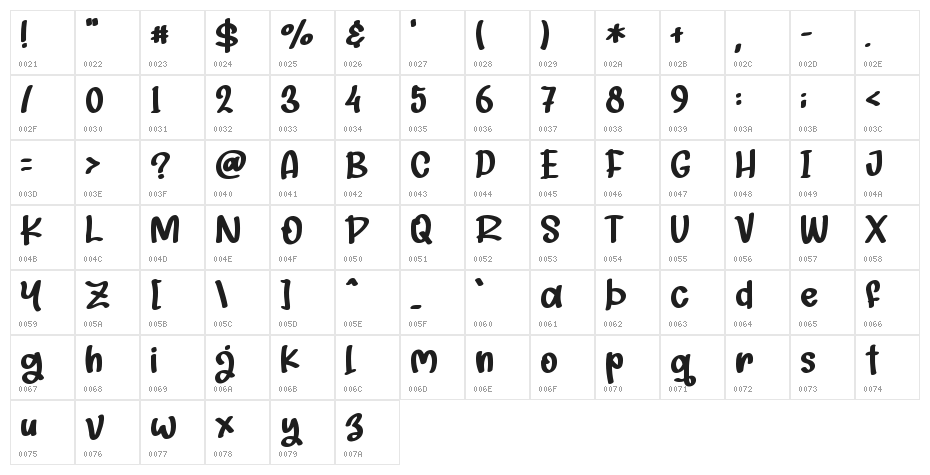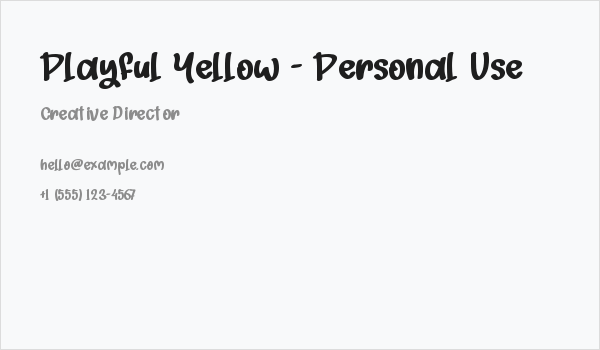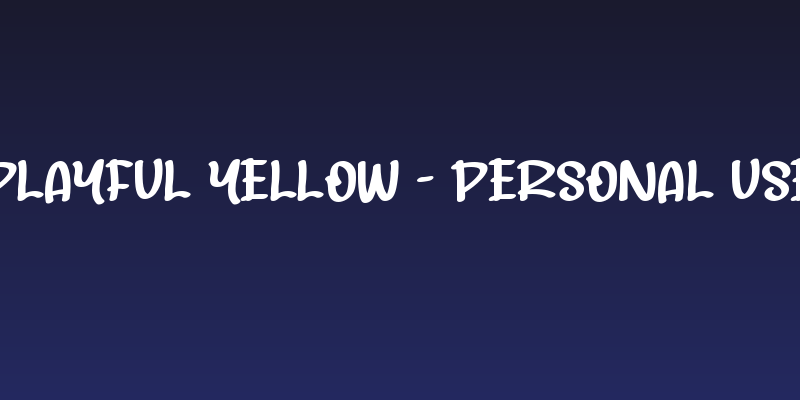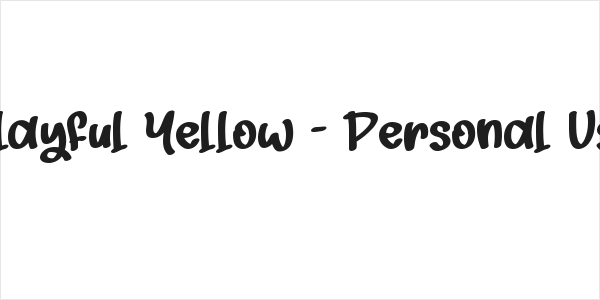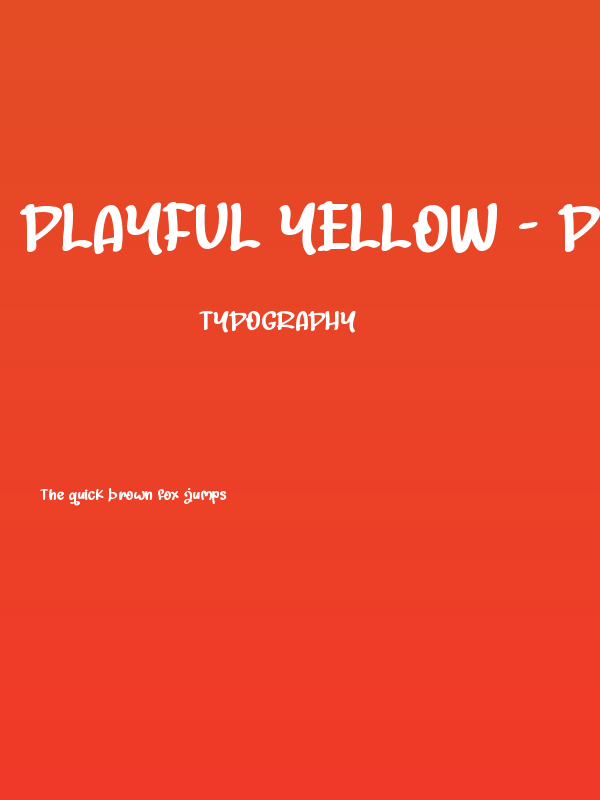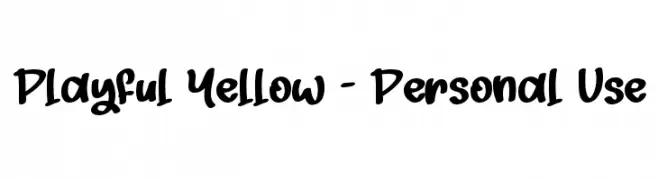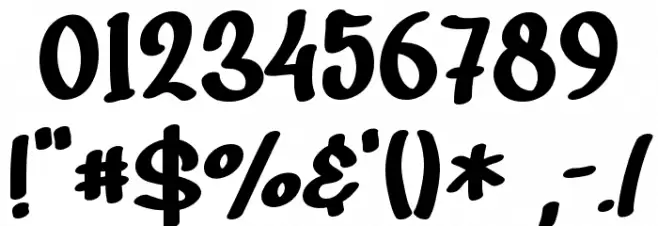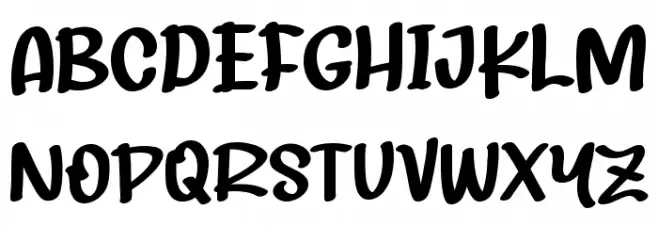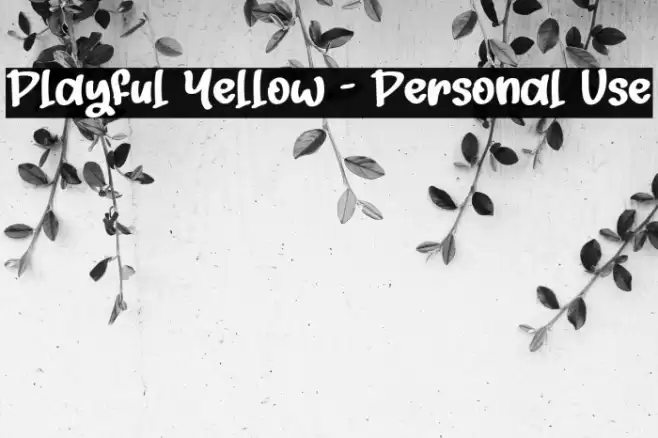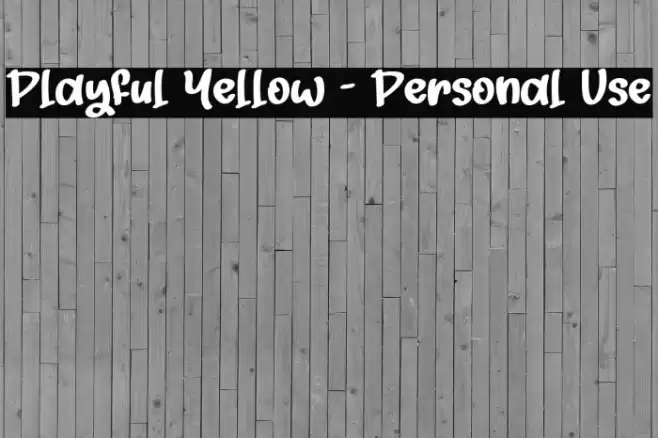
Playful Yellow - Personal Use Font
A playful, rounded, handwritten style font with a casual and friendly appearance.
| Overall Style | Casual, Playful, Friendly |
| Use Case | Headlines, Logos, Posters, Children's products |